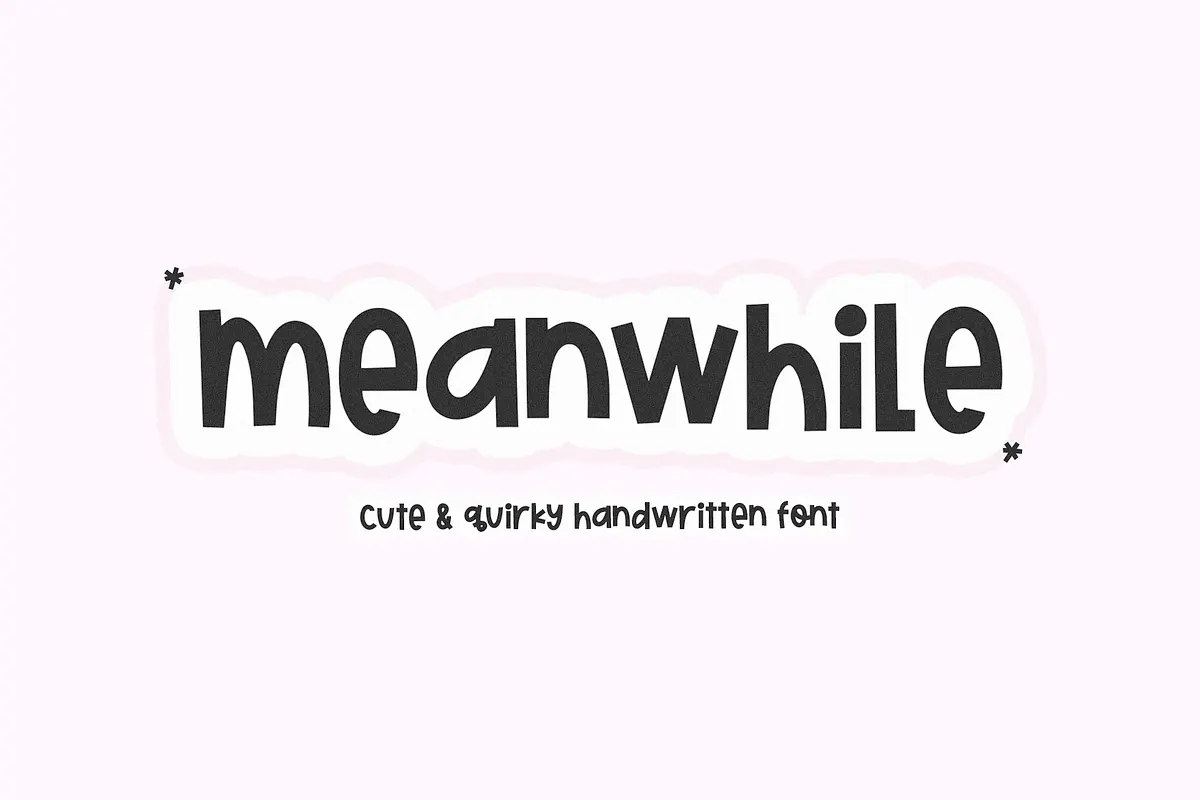
Meanwhile | Quirky Handwritten Font Free Download
Meanwhile – Quirky Handwritten Font Free Download is a playful and expressive typeface that brings charm, personality, and a human touch to your creative projects. Please note, you are required to purchase this font for commercial use. It is available for free download for testing and personal projects only.
With its irregular lines, casual strokes, and friendly vibe, Meanwhile is perfect for greeting cards, kids’ designs, blog headers, social media posts, product packaging, and creative branding. It feels spontaneous and fun—like a handwritten note full of character and warmth.